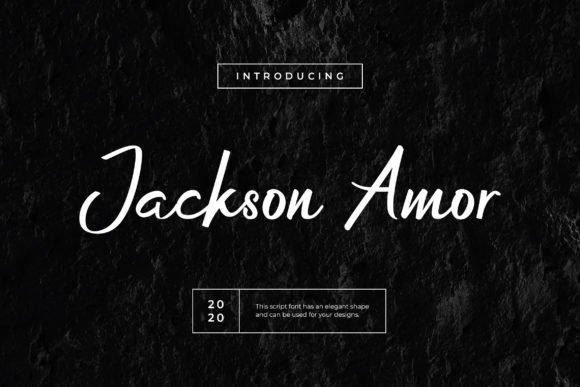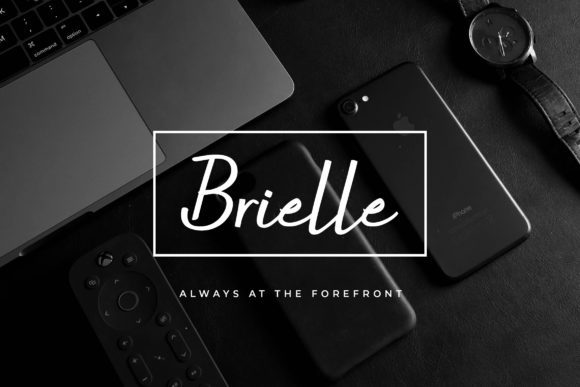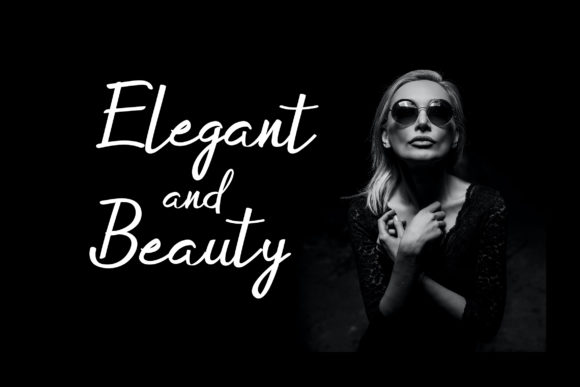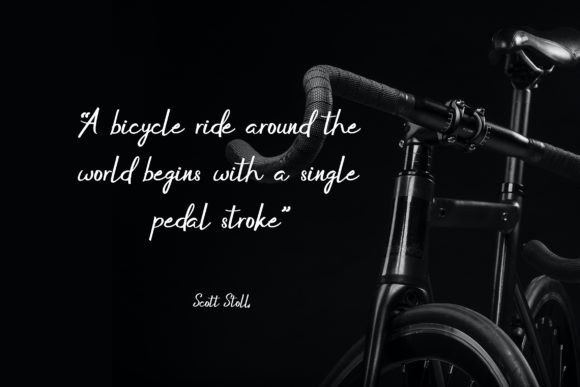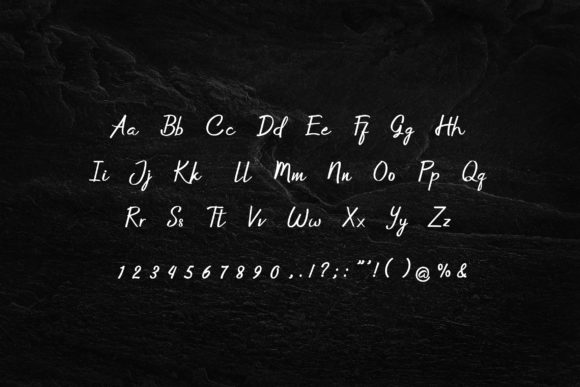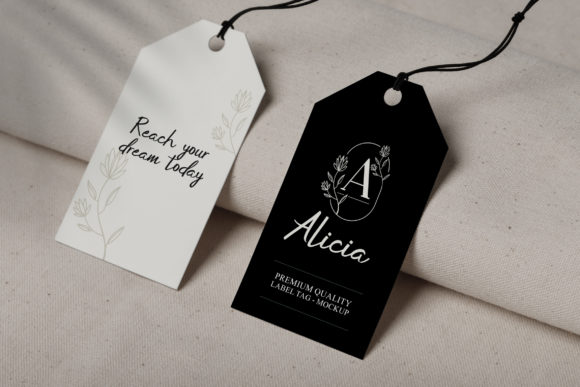
The Perfect Brushstroke: Discovering Jackson Amor Font
Have you ever found yourself sitting in front of a blank page, struggling to bring your creative vision to life? The blank canvas staring back at you can be daunting, but what if you had the perfect brushstroke to guide you? For designers and artists alike, the right font can be the missing piece that sets their project apart. Enter Jackson Amor Font, a sweet and cursive handwritten font that will add a touch of whimsy and romance to any design.
With its gentle curves and flowing lines, Jackson Amor Font is the perfect choice for designers looking to add a personal touch to their projects. Whether you’re creating a wedding invitation, a birthday card, or a branding package, this font is sure to bring a smile to your client’s face. Its versatility and charm make it a valuable addition to any designer’s toolkit.
Jackson Amor Font Key Features
- Font Family: A modern, elegant script font designed for various applications.
- Size: Includes a range of font sizes, from 12pt to 72pt, allowing for versatile use in different contexts.
- Resolution: Supports high-resolution displays, making it suitable for use in print and digital media.
- Unique Characteristics: Features a unique blend of elegance and playfulness, with subtle flair and texture, making it ideal for creating visually appealing designs.
- Languages Support: Supports multiple languages, including Latin-based languages and some Cyrillic languages.
Review of Jackson Amor Font
Overall, the Jackson Amor Font is a beautiful, elegant script font that would be perfect for various design projects, such as wedding invitations, logo designs, and branding materials. ✨ The font’s flowing lines and intricate details make it visually appealing and catch the eye of the viewer. The subtle texture and organic feel of the font add to its charm, giving it a unique and sophisticated look.
- The font’s readability is excellent, making it perfect for body text or short paragraphs.
- Its versatility allows it to be used in various design contexts, from formal to casual.
- The font’s organic feel and subtle texture give it a unique and sophisticated look.
However, there are some limitations to consider. ⚠️ The font may be too ornate for some design projects, and its complexity might make it difficult to pair with other fonts. Additionally, the font’s texture and details may not be suitable for small text sizes, as they may become lost or difficult to read.
In conclusion, the Jackson Amor Font is a stunning and elegant script font that would be perfect for various design projects. While it may have some limitations, its unique look and feel make it a great addition to any designer’s toolkit.
Tips for Getting the Most Out of the Jackson Amor Font
Use the Jackson Amor Font to add a touch of elegance to your designs. Pair it with a bold font for contrast or use it as a header font for a classic look.
The Jackson Amor Font is perfect for:
- Business cards and letterheads.
- Magazine and book covers.
Q: What is the recommended font size and line height for optimal readability with the Jackson Amor Font?
For optimal readability, we recommend using a font size between 12pt and 18pt, with a line height of 1.2 to 1.5 times the font size. This will ensure clear and legible text, even at smaller font sizes.